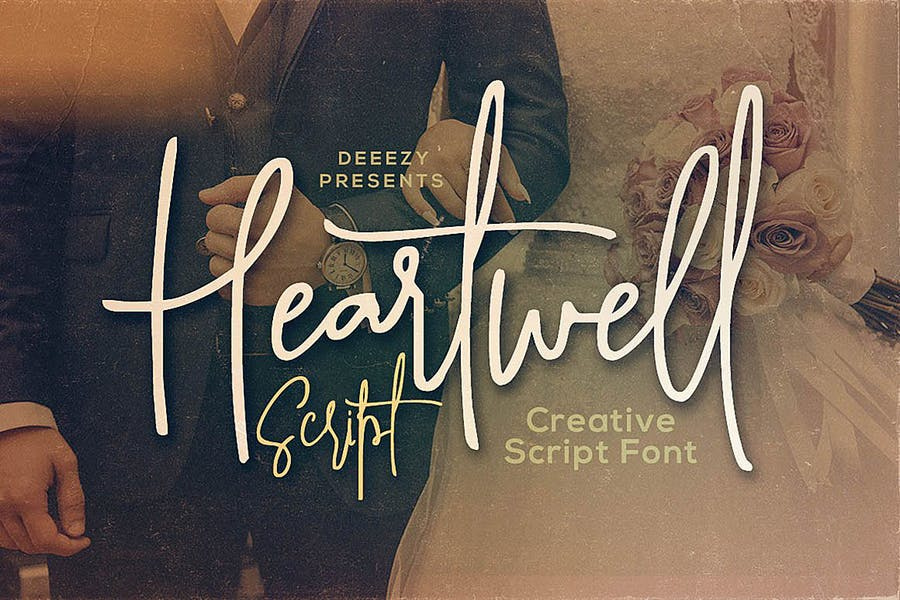
Heartwell Script Font
Heartwell Script Font is perfect for romantic wedding invitations, heartfelt greeting cards, love-themed branding, intimate boutique signage, sentimental stationery designs, romantic restaurant menus, Valentine's Day marketing, emotional social media graphics, personal branding materials, and affectionate product packaging.
Heartwell Script Font creates excitement because it beautifully captures the essence of love and emotion with its flowing, romantic letterforms and tender handwritten aesthetic. The font's gentle curves and heartfelt character design instantly convey warmth and intimacy, making any brand appear caring and deeply personal. Its carefully crafted romantic details and expressive flow create an immediate emotional connection that captivates audiences seeking authentic love, meaningful relationships, and products that celebrate the beautiful moments of human connection and affection.
The Heartwell Script Font family includes multiple weights and styles: Regular, Bold, Light, Medium, Italic, Flourished, Condensed, Extended, Decorative, and Casual versions. Each variant maintains the font's signature romantic character while offering different levels of emotional expression and decorative styling suitable for various love-themed and sentimental applications.
This enchanting typeface brings the poetry of handwritten love letters into modern romantic design with authentic emotion and heartfelt charm. Heartwell Script Font Free Download offers romantic brands and creative professionals access to premium script typography that embodies genuine emotion and the timeless beauty of love expression. The font's tender appearance and heartfelt quality make it ideal for businesses and individuals seeking to create meaningful connections through design that speaks directly to the heart. Whether you're creating branding for wedding services, designing materials for romantic occasions, developing packaging for love-themed products, or producing content for intimate hospitality experiences, this font delivers the emotional authenticity that resonates with audiences seeking genuine love, heartfelt connections, and meaningful expressions of affection. Its versatile romantic design ensures outstanding performance across both precious printed keepsakes and touching digital communications while maintaining the intimate beauty of personal handwriting. The font excels in applications requiring emotional depth and romantic appeal. Wedding and relationship professionals appreciate its ability to convey sincere emotion while remaining highly readable for various romantic materials and intimate communications. The comprehensive character set includes loving flourishes and international language support, making it perfect for global romantic brands and international wedding services seeking to communicate authentic love, heartfelt emotion, and genuine romantic sentiment to diverse worldwide audiences who cherish meaningful relationships, celebrate true love, and treasure the beautiful moments that make life truly extraordinary and filled with joy.